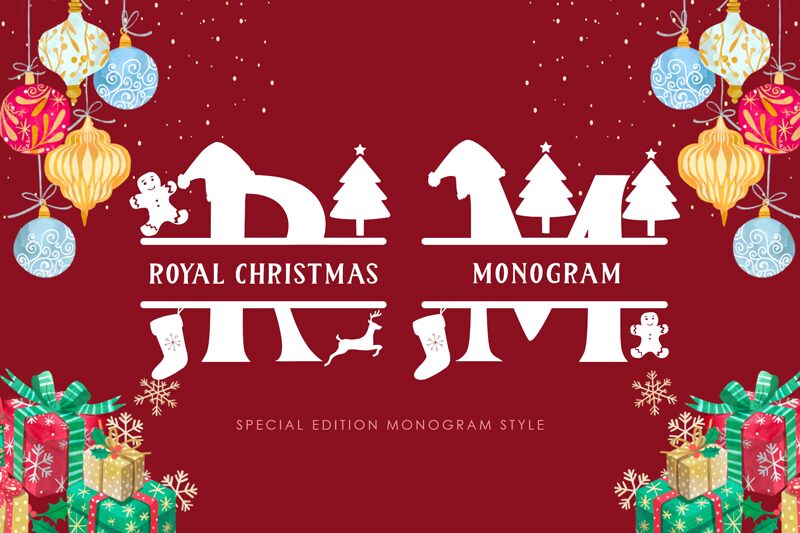
Royal Christmas Monogram font family is a charming holiday-themed typeface by Yoga Letter, with two distinct font styles. Designed to evoke the festive spirit, this font family incorporates whimsical Christmas motifs and thematic embellishments. It combines a monogram style with a touch of serif influence, creating a cheerful ambiance that perfectly captures the holiday essence.
Ideal for a wide range of holiday projects, Royal Christmas Monogram can enhance Christmas cards, gift tags, holiday invitations, social media posts, and festive decorations. It’s also perfect for banners, event posters, seasonal product packaging, and DIY crafts. The font's decorative nature makes it a versatile choice for any project that needs a festive flair.